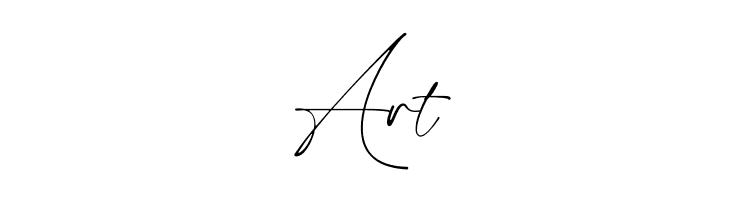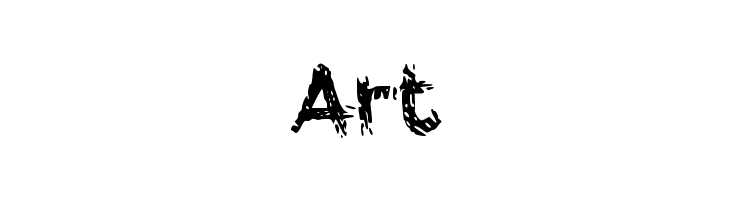
A playful and elegant script font with a handwritten feel.
An ornate and decorative font with elaborate curves and flourishes.
A playful, hand-drawn font with bold, irregular shapes and a whimsical style.
A bold, distressed font with a graffiti-like, hand-drawn appearance.
Playful, bold handwritten font.
Bold, playful, and shiny decorative font.
A bold, three-dimensional font with geometric and vintage elements.
A bold, three-dimensional font with a modern, geometric style and shadowed effect.
A modern, elegant handwritten script with fluid, graceful strokes.